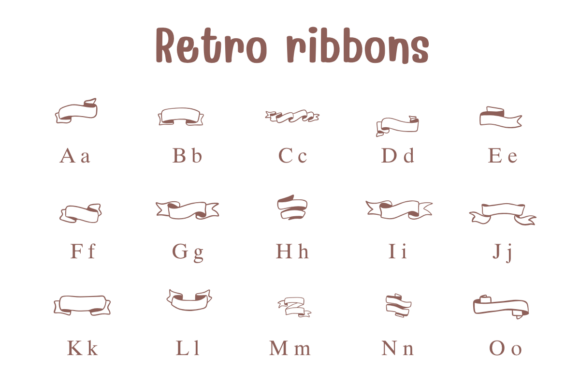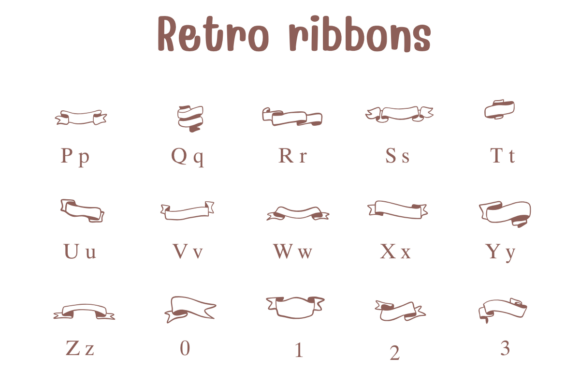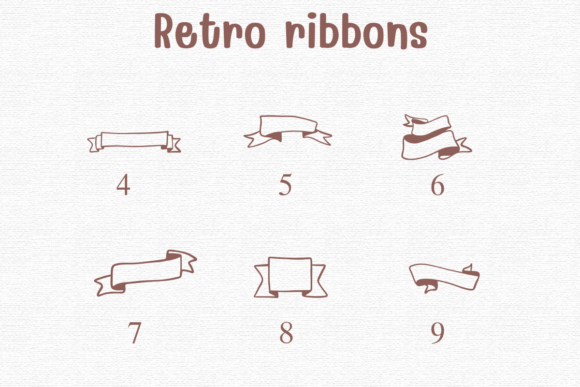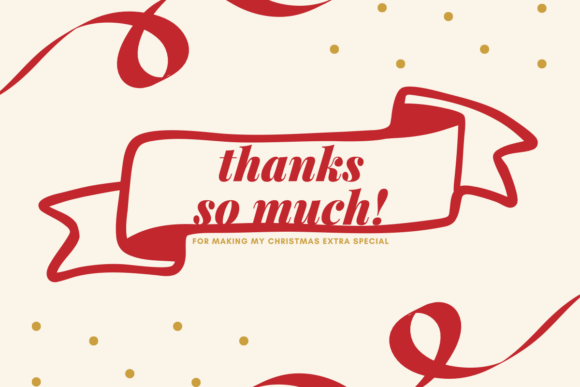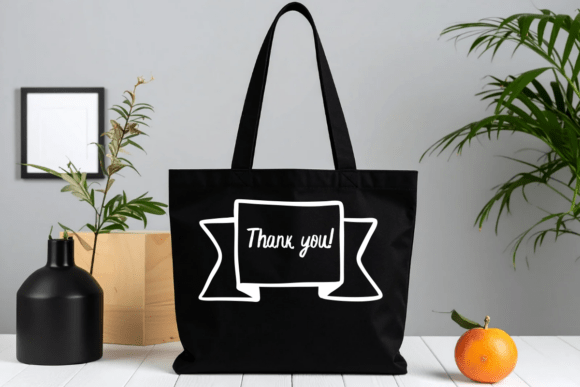
Introduction to Retro Ribbons Font
Key Features of Retro Ribbons Font
Why Choose Retro Ribbons Font?
Retro Ribbons Font offers exceptional quality and versatility, making it a valuable addition to your design toolkit. Whether you’re creating for personal projects or commercial use, Retro Ribbons Font delivers professional results.